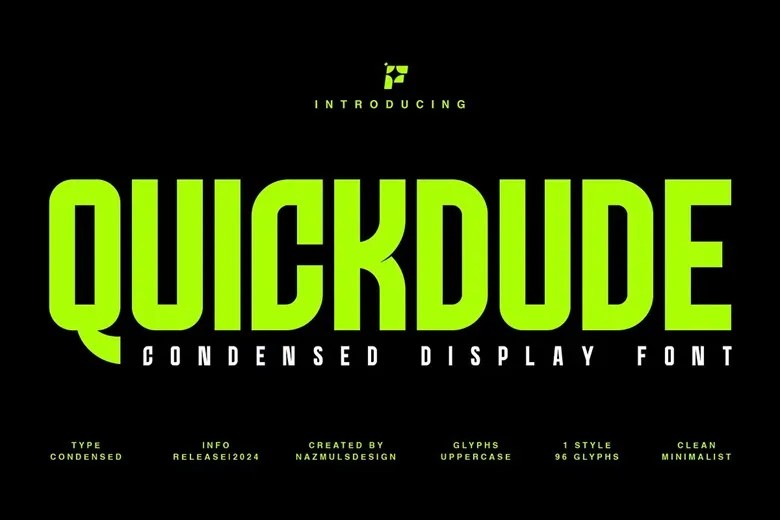
Quickdude Font
Quickdude is a sleek and elegant condensed display typeface, perfect for making a bold impact in the modern design landscape. Its dynamic and stylish design is tailored for headlines, posters, branding, and other applications that demand high visibility. The typeface’s clean lines and compact style optimize space usage while maintaining a cutting-edge aesthetic.
Ideal for both web and print designs, Quickdude adds a sense of brightness and enhances readability, ensuring your layouts captivate and communicate effectively. Its contemporary appeal makes it a versatile choice for designers aiming to stay on trend.